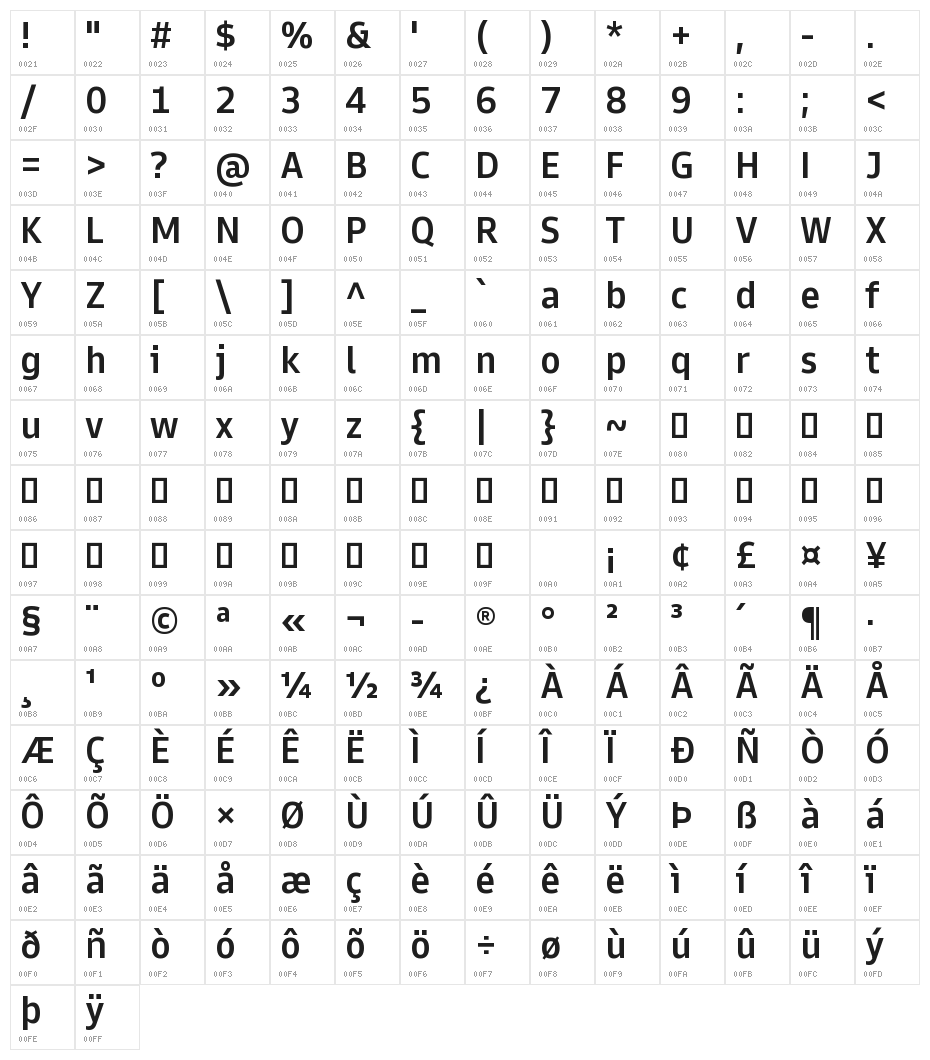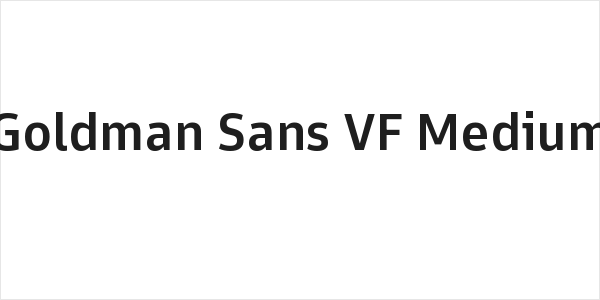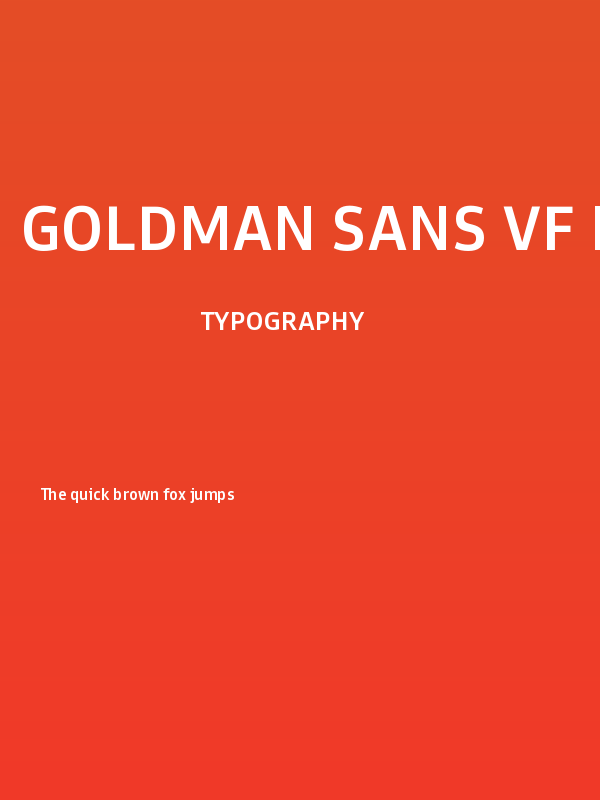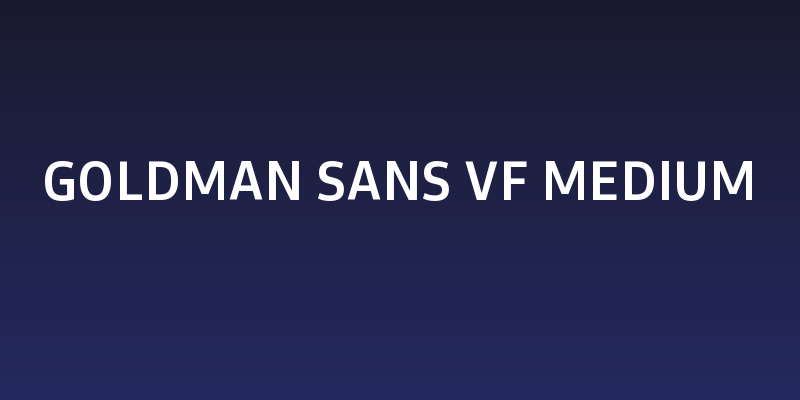
Goldman Sans VF Medium Font
Goldman Sans VF Medium Description
This typeface features a clean and modern sans-serif design with a medium weight. The characters are well-proportioned, offering a balanced and harmonious appearance. The uppercase letters are bold and assertive, while the lowercase letters maintain a consistent height and width, ensuring readability. The numerals are clear and distinct, making them suitable for both text and numerical data. The special characters are well-integrated, maintaining the overall aesthetic of the font. Its simplicity and clarity make it versatile for various design applications.
| Proposed Projects | Ideal for corporate branding, web design, user interfaces, and print media. |